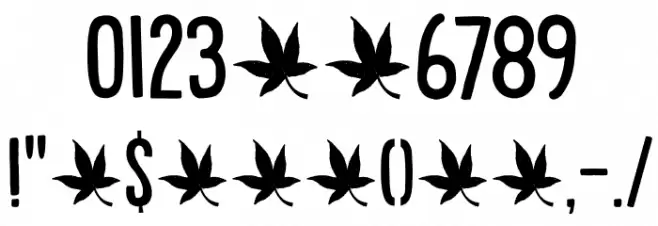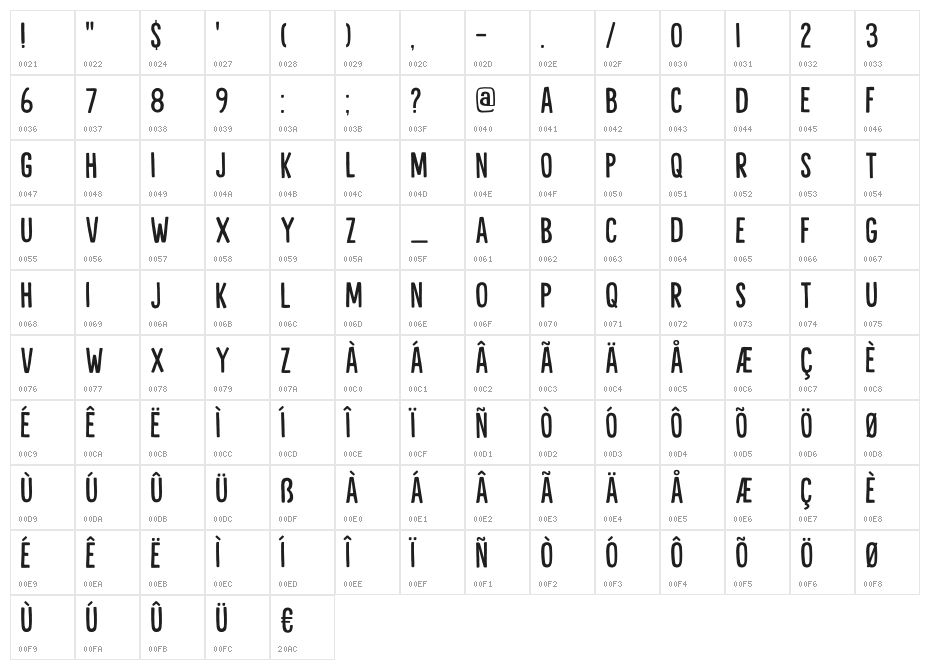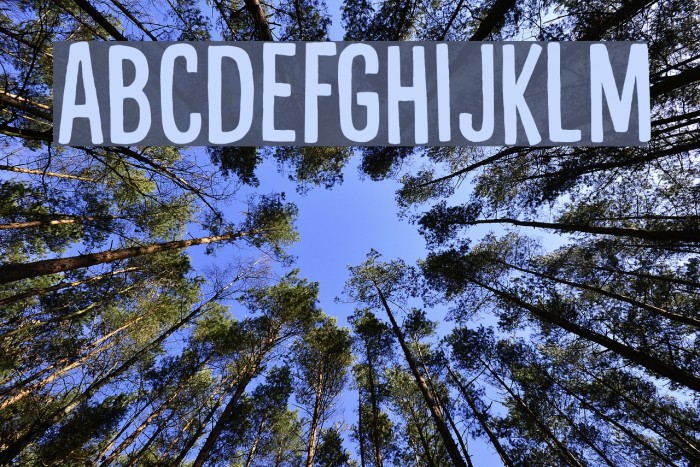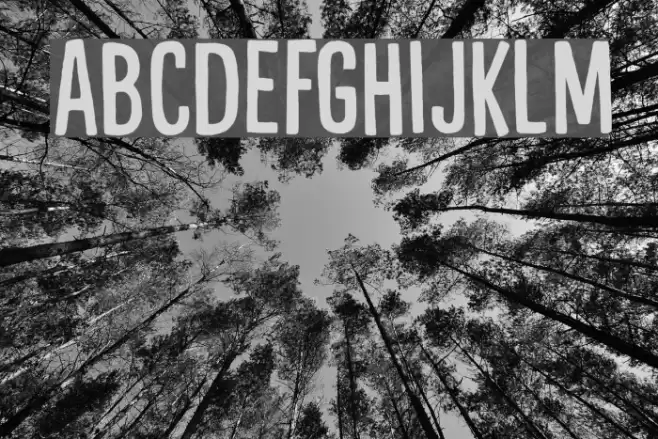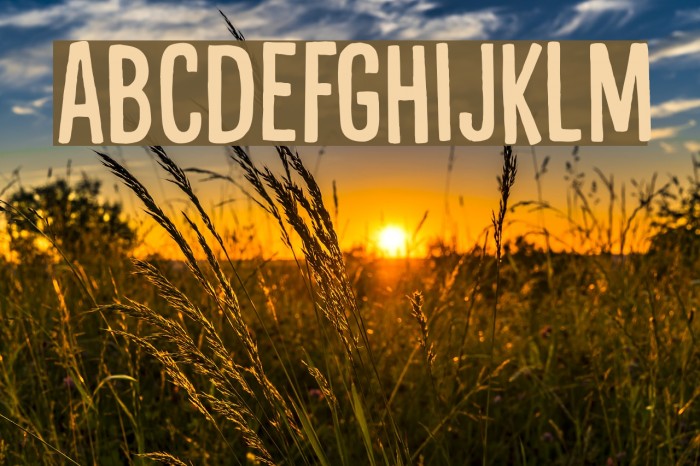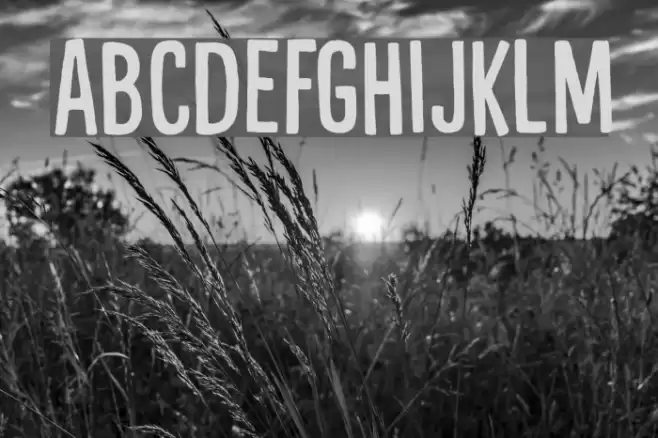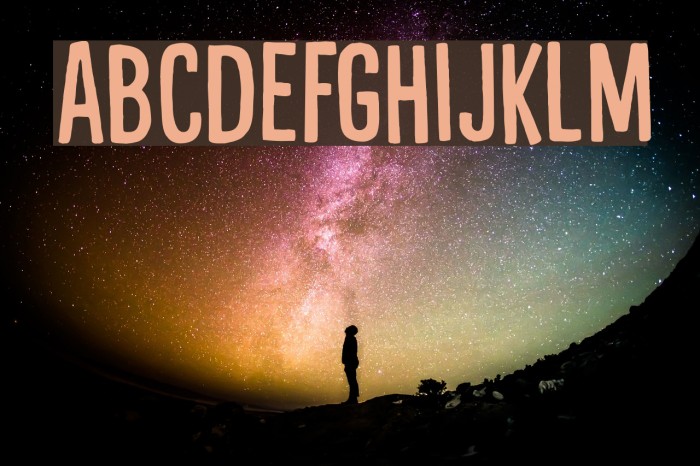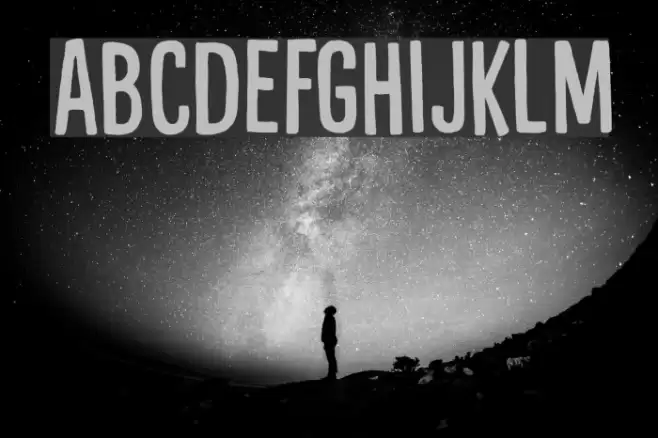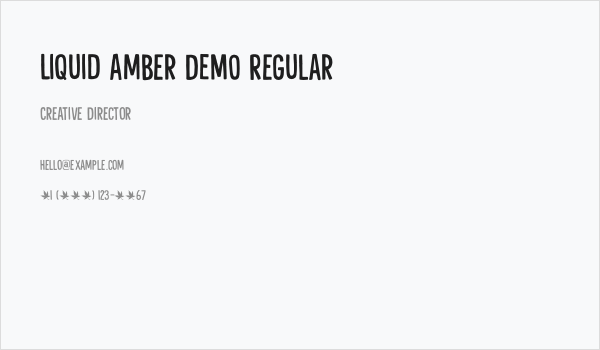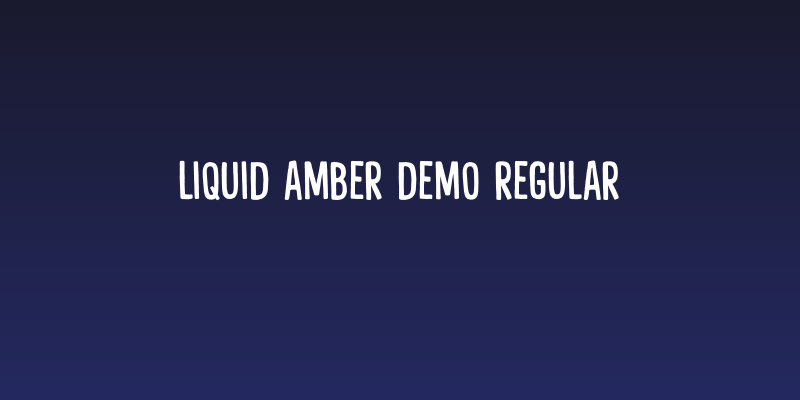
Liquid Amber DEMO Regular Font
Liquid Amber DEMO Regular Description
This font features a bold and playful design with a distinct hand-drawn appearance. The letters are slightly elongated with rounded edges, giving a friendly and approachable feel. The uppercase and lowercase letters maintain a consistent style, while the numbers are clear and easy to read. Unique leaf symbols are included, adding a decorative touch that enhances its playful nature. The font's overall style is casual and artistic, making it suitable for creative projects that require a personal and informal touch.
| Overall Style | Playful, Artistic |
| Proposed Projects | Ideal for posters, children's books, greeting cards, and creative branding projects. |